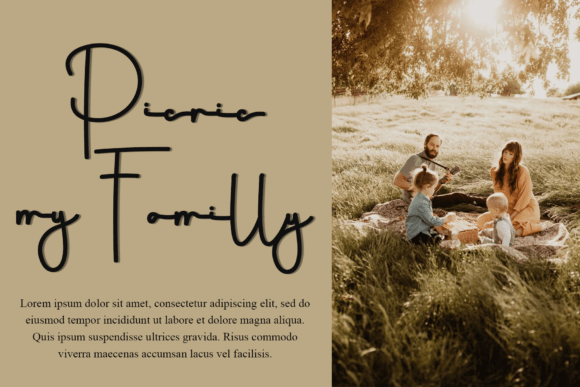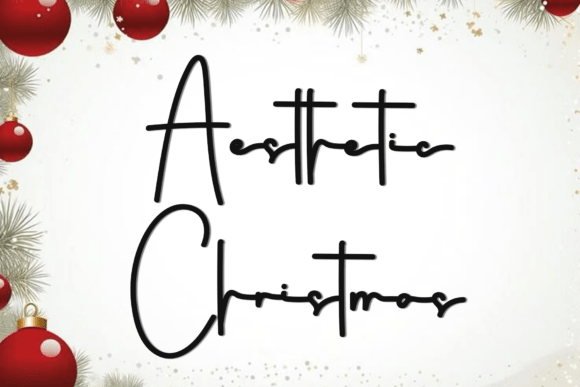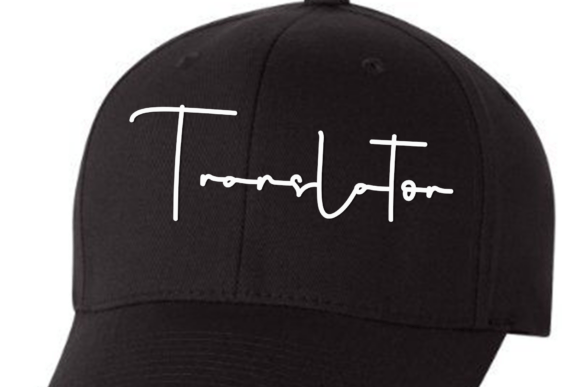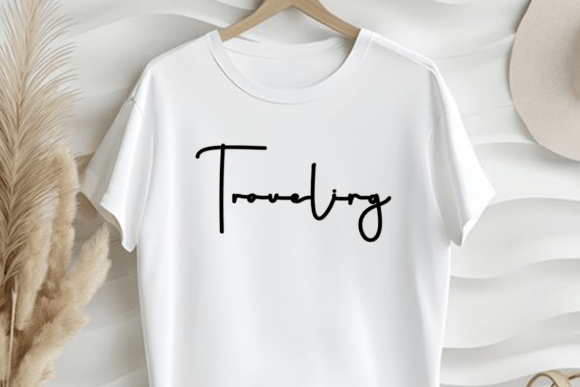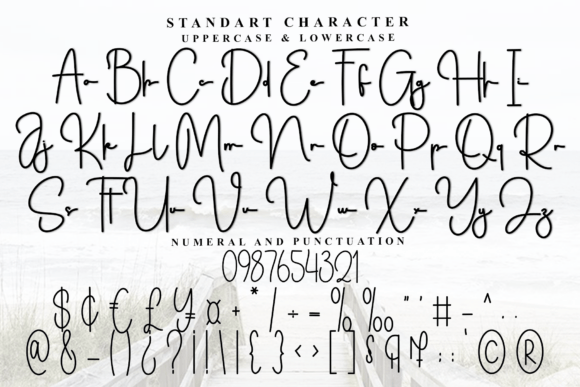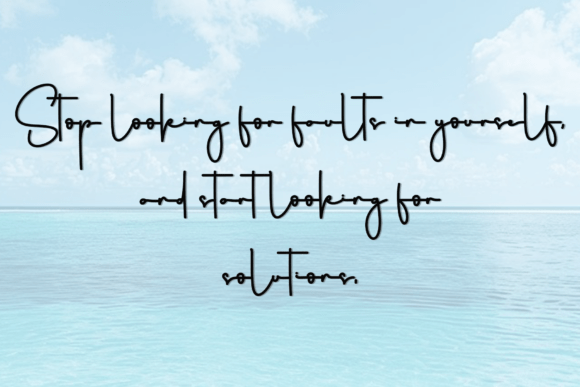
Introduction to Digital Planers Font
As you sit at your desk, surrounded by scraps of paper, glue, and twinkling lights, you can’t help but feel the excitement of the holiday season. The sound of Bing Crosby’s “White Christmas” fills the air, and your mind starts to wander to the perfect gift for your loved ones. And then, it hits you – the design for your holiday card, or maybe a gift tag, or even a festive social media post. The question is, what font will bring it all together?
Enter the Digital Planers Font, a high-quality design resource that’s sure to add a touch of magic to your creative project. With its whimsical flair and decorative elements, this font is perfect for bringing a cheerful and nostalgic ambiance to your words. Whether you’re a seasoned designer or just starting out, the Digital Planers Font is a valuable addition to your design arsenal.
Key Features of Digital Planers Font
- High-quality design resource with a unique aesthetic, perfect for creative projects.
- Unique characteristics include a modern and sleek design, making it ideal for digital planners, journals, and other creative projects.
Honest Review: Digital Planers Font
- High quality and crisp typography
- Perfect for creative projects, such as infographics, posters, and brochures
What I particularly like about this font is its versatility. It’s suitable for both modern and traditional designs, making it a great choice for a wide range of projects.
However, I do have a few minor complaints: ⚠️ the font is only available in a few weights, which may limit its use in complex designs. Additionally, the font is not as extensive as some other paid options, but for a free download, it’s hard to complain.